Rocketto imprints indescribable elegance through its fashionable yet hand-drawn letter shapes. The combination of modern and classic attracts designers to include the font in their designs. But your typography will not make a breakthrough if it is similar to others. Thus, here are perfect alternatives to font similar to Rocketto.
Key takeaway:
- Rocketto font’s premium appearance comes from the combination of handcrafted strokes and modern letter forms.
- Alternatives for Rocketto elevate the uniqueness of your designs with their unprecedented flair.
What is Rocketto Font?
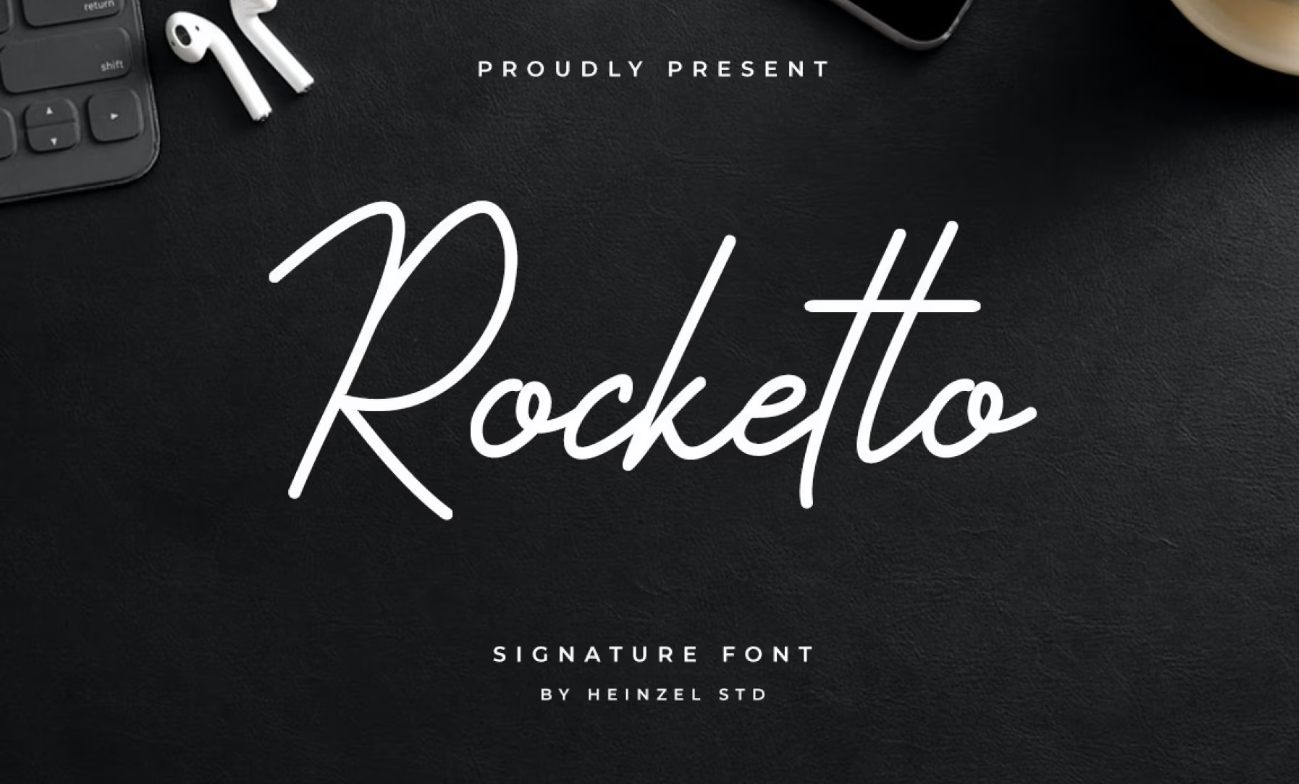
Rocketto is the creation of an Indonesian artist, Nofi Sofyan Hadi. Its most noticeable characteristics are the handcrafted letter forms, illustrating the formal appearance of a signature; yet, the baseline is bouncy, making it look more casual.
25 Distinctive Alternatives That are Similar to Rocketto
Svaiko–an experienced copywriter and web development enthusiast– thinks that script fonts, or ones that are born as the accurate imitation of penmanship, are personal. Their natural and out-of-the-ordinary strokes emphasise your message in a very distinctive way.
You can consider the one you desire to create a better design. Our font collection will show the qualities and a unique flair. Here’s the recommendation.
1. Belasty Calligraphy Script Font
Belasty offers loose strokes that are a feast to the eyes. The font’s light-hearted descenders contribute to the free-spirited yet elegant aura.
2. Ballentia Signature Luxury Font
The high-class and intertwining strokes portray the exclusivity of the font. Yet, the carefree baseline and terminals are as if relaxing in a comfortable lounge.
3. Millantey Elegant Script Font
Millantey takes your breath away with its majestic capitals and feminine lower cases. Use the font’s slim letter shapes on your printed quotes to add stronger elegance.
4. Bristega Modern Script Font
Balanced boldness and lengthy ribbon-like swashes of Bristega are special. Include the straight-line additional strokes in your social media posts to emphasize your personality.
5. Ganttecy Signature Font
Ganttecy’s easygoing strokes are the embodiment of the natural flow of calm water current: graceful, undisturbed, and well-grounded.
6. Herattey Signature Font
Herrattey deserves to be crowned as the font similar to Rocketto that characterizes cursive strokes, yet with wave-form ascenders and descenders.
7. Palmaris Modern Script Font
Palmaris’ intrinsic letter forms are the depiction of both glamor and minimalism. Use this eye-catching font to strengthen the luxurious aura of your magazine designs.
8. Brilona Modern Script Font
Brilona’s swashes are as wonderful as the evening dress of a high-class model. Parade the dazzling alternative on your brand logos and website titles.
9. Hastheya Chic Stylish Signature Font
The modish letter shapes of Hastheya are undeniably attractive, like a rising star on a Vogue photoshoot. For stronger elegance, use the in-fashion font for your fashion brand logos.
10. Bengoda Modern Handwritten Font
Bengoda depicts the mysterious water surface on a beach during sunset through the font’s sleek strokes and flowing swashes.
11. Magonda Casual Script Font
Magonda’s strokes are unrestricted, like the feeling of freedom from tight shackles. Use the font’s simplicity on your watermark photography to be more noticeable.
12. Batherga Signature Font
Batherga draws the attention of your audience to the font’s arrow-shaped ligatures and optimistic descenders, like the relaxing breeze in an open space.
13. Artinosy: an Elegant Handwritten Font
Artinosy’s greatest charm is the artistic capital letters. They also complement the careful strokes of the lower cases, making the font fit for your album covers.
14. Bryan Richard Signature Font
Bryan Richard illustrates the intelligent writing of a professional medical practitioner through the font’s extremely slanted axis and interconnected strokes.
15. Brityna Calligraphy Font
Brittany’s letter shapes are oblique and enchanting, like the perfect depiction of walking down towards an oasis with graceful steps.
16. Bettasy Signature Font
Bettasy showcases a pretty appearance of a font similar to Rocketto through its droopy and straight ligatures, with the unique, additional serifs.
17. Brandise Signature Font
Your elegant design will flourish like a blooming flower, with Brandise’s exclusive aura and letter forms.
18. Festigan Business Handwritten Font
Festigan exhibits intertwined ligatures that embody the elongated form of tropical ferns’ leaves.
Also Read: 25 Aesthetic Vintage Fonts for Timeless Design Projects
19. Sergia Handwritten Font
Like a devoted servant and protector, Sergia presents dramatic oval-shaped descenders and astonishing capital letters.
20. Daystar Casual Handwritten Font
Daystar mimics the sparkling and awe-inspiring form of shooting stars through the font’s letter forms.
21. Graystone Elegant Signature Font
Graystone’s sturdy strokes, like the material for indestructible buildings, are charming, along with the font’s mountain-surface-like letter shapes.
22. The Darling Beautiful Hybrid Serif Font
The Darling becomes one of the endearing fonts similar to Rocketto, especially because of its phenomenal merge of readable serifs and the flowy embellishments.
23. Estancia Elegant Signature Font
Estancia decorates your business cards with the font’s polished alternates, along with incomparable, flowing strokes.
24. Katty Diona Signature Font
The curvy and stylish letter forms of Katty Diona are purely natural, like white pigeons flying across heavenly sunrays.
25. Argine Signature Font
Argine leaves you in awe with the font’s beautiful alternates and smooth strokes, like the cheerfulness after achieving your greatest milestone.
Other Alternatives for Rocketto?